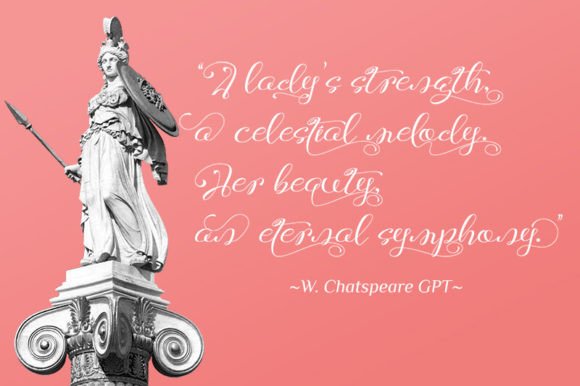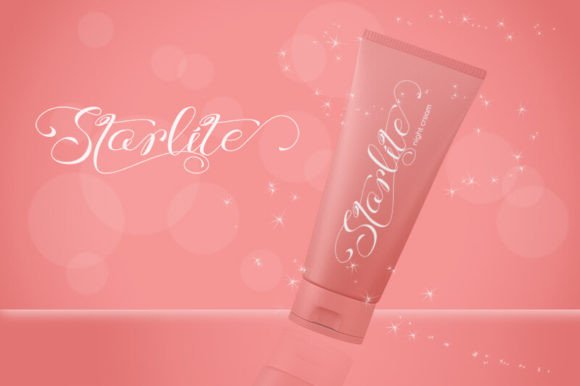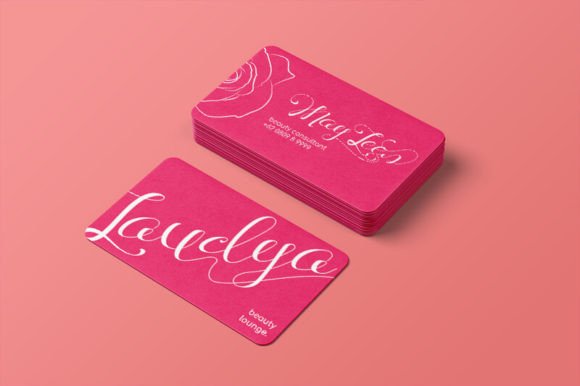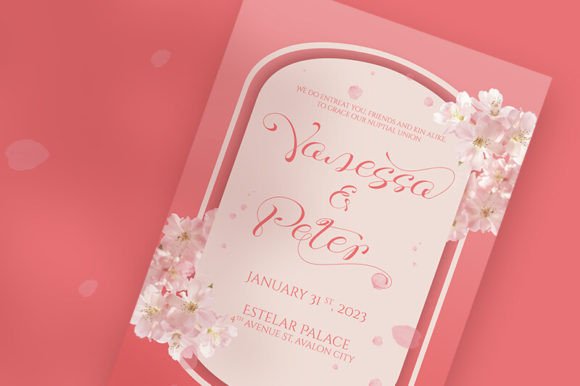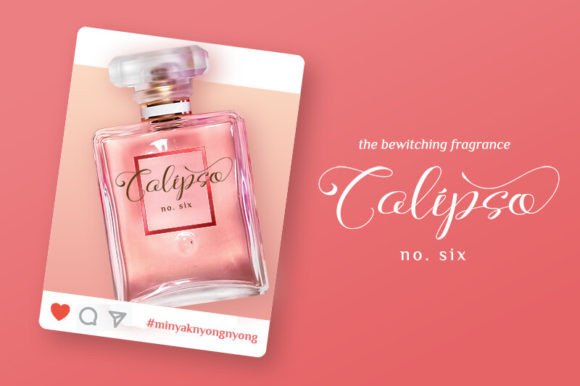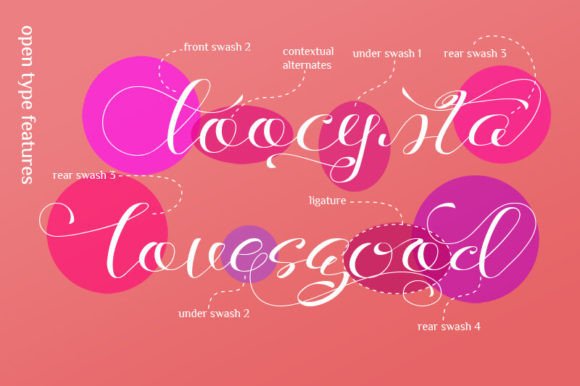
Introduction to Meikaylla Font
Have you ever been working on a creative project, pouring your heart and soul into it, only to realize that the perfect font is missing? This is where the Meikaylla Font comes in – a beautiful, high-contrast calligraphy script that will elevate your designs and leave a lasting impression. Its bouncy yet elegant style is perfect for adding a touch of sophistication to your work.
Whether you’re designing invitations, greetings, packaging, branding, or themed designs for spring and autumn, the Meikaylla Font is an invaluable resource for designers. With its high-quality design and transparent background, you can easily customize it to fit your needs. And the best part? You can download it for free, making it a must-have in your design arsenal.
Key Features of Meikaylla Font
- High-quality design resource ideal for creative projects, available for free download
- Unique, elegant design with a transparent background, allowing for seamless integration into various design elements
- Meikaylla Font is a versatile design resource, perfect for use in logos, typography, and other creative projects
- Meikaylla Font is designed to provide a clean and professional look, making it an excellent choice for designers seeking a high-quality design resource
Honest Review: Meikaylla Font
I recently stumbled upon the Meikaylla Font while searching for a high-quality design resource for a creative project. The font is available for free download, which is a huge plus in my book.
What works well: ✨ The Meikaylla Font has a unique and modern design aesthetic that’s perfect for any project that requires a touch of sophistication. The font is also highly customizable, making it easy to adjust the size and style to fit your needs. The transparent background feature is also a nice touch, allowing for seamless integration into any design.
- Unique and modern design aesthetic
However, there are a few limitations: ⚠️ The font may not be suitable for projects that require a more traditional or serif font style. Additionally, the font may not be compatible with all software or operating systems.
Overall, I’m impressed with the Meikaylla Font. While it may not be perfect for every project, it’s a great resource to have in your toolkit. With its unique design and high level of customization, it’s a great choice for designers looking to add a touch of creativity to their work.
Common Use Cases for Meikaylla Font
The Meikaylla Font is suitable for a variety of creative projects, including logos, business cards, brochures, and presentations. Its high-quality design and transparent background make it an ideal choice for designers who want to create a professional and modern look.